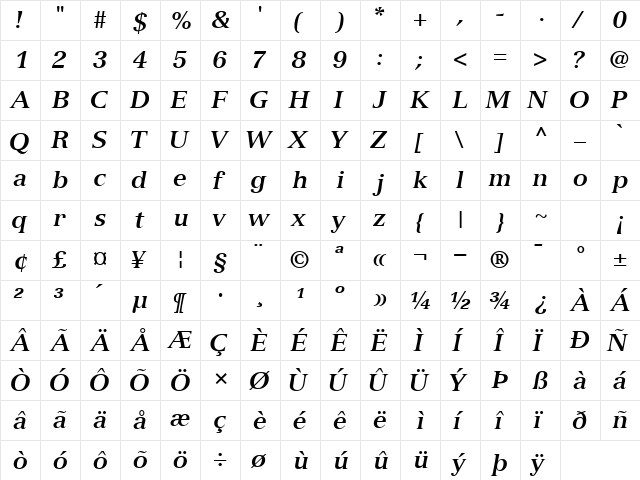
NuanceSSK BoldItalic
Design Context for NuanceSSK Typeface
NuanceSSK is a composed and adaptable typeface that performs quietly and consistently across a wide range of design contexts. The slanted form adds forward momentum and visual energy. Its bold stroke weight gives it real presence on the page.
Pro Tip: Use NuanceSSK for emphasis, pull quotes, and subheadings where its slanted energy can add rhythm to the layout.